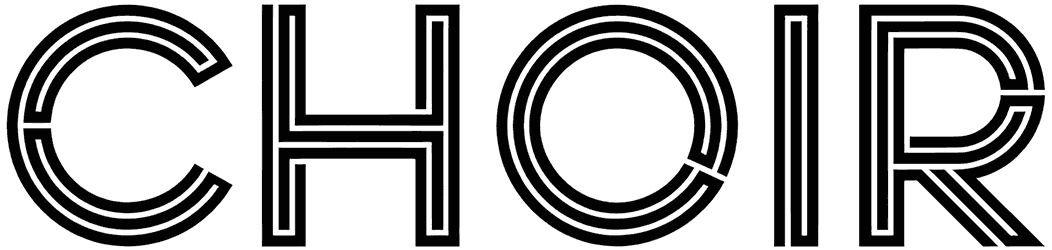
Choir Font
This stylish, groovy font is perfect for logos, games, printed T-shirts, card designs, and more, and it can help change the tide and get the ball going again. The absence of lowercase characters is Choir’s single serious shortcoming.
Even when employing all capital letters, a line effect is preserved; therefore, this 70s disco font will make an impression. With the help of our ever-expanding library of fonts, you can take your next project to a new level.